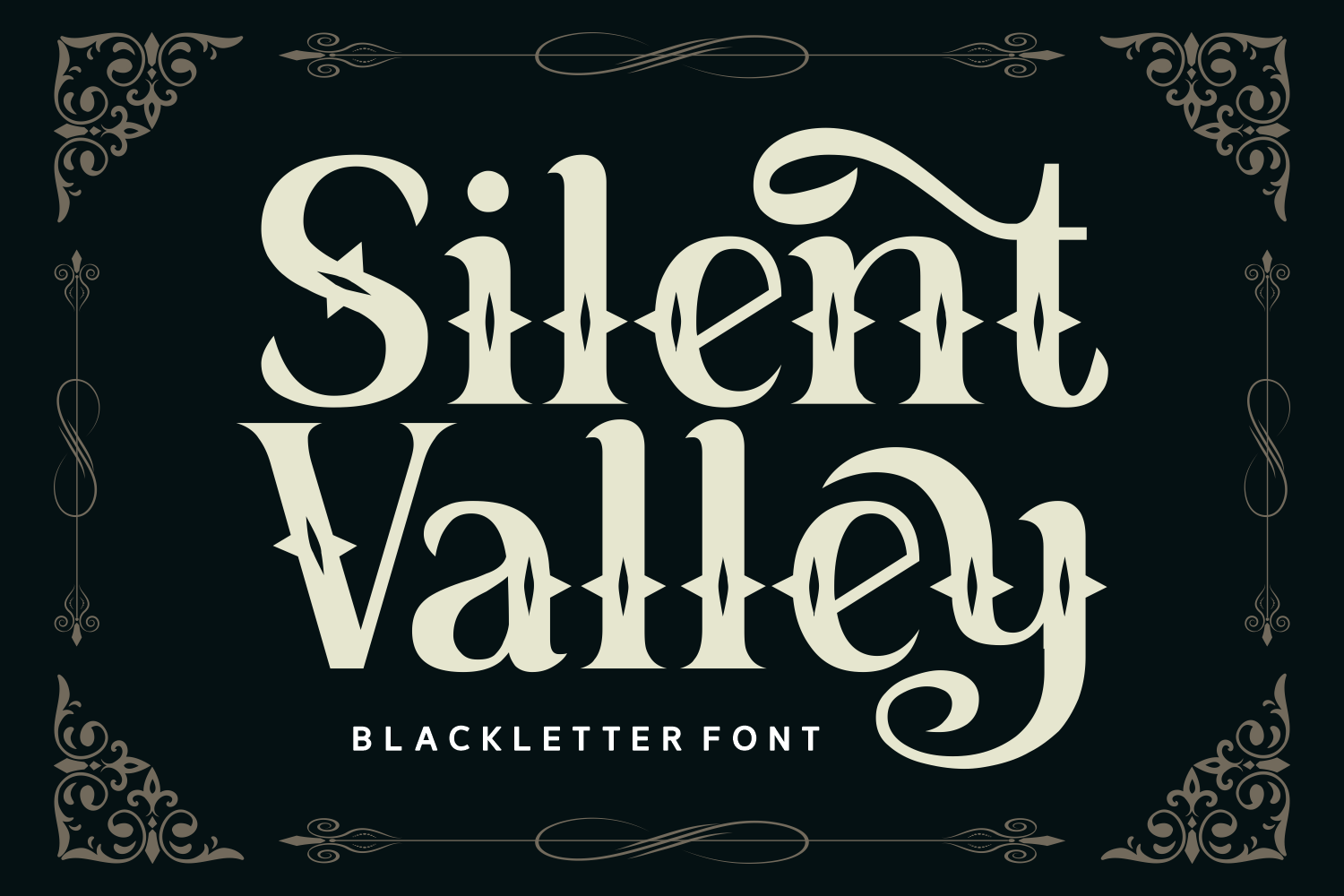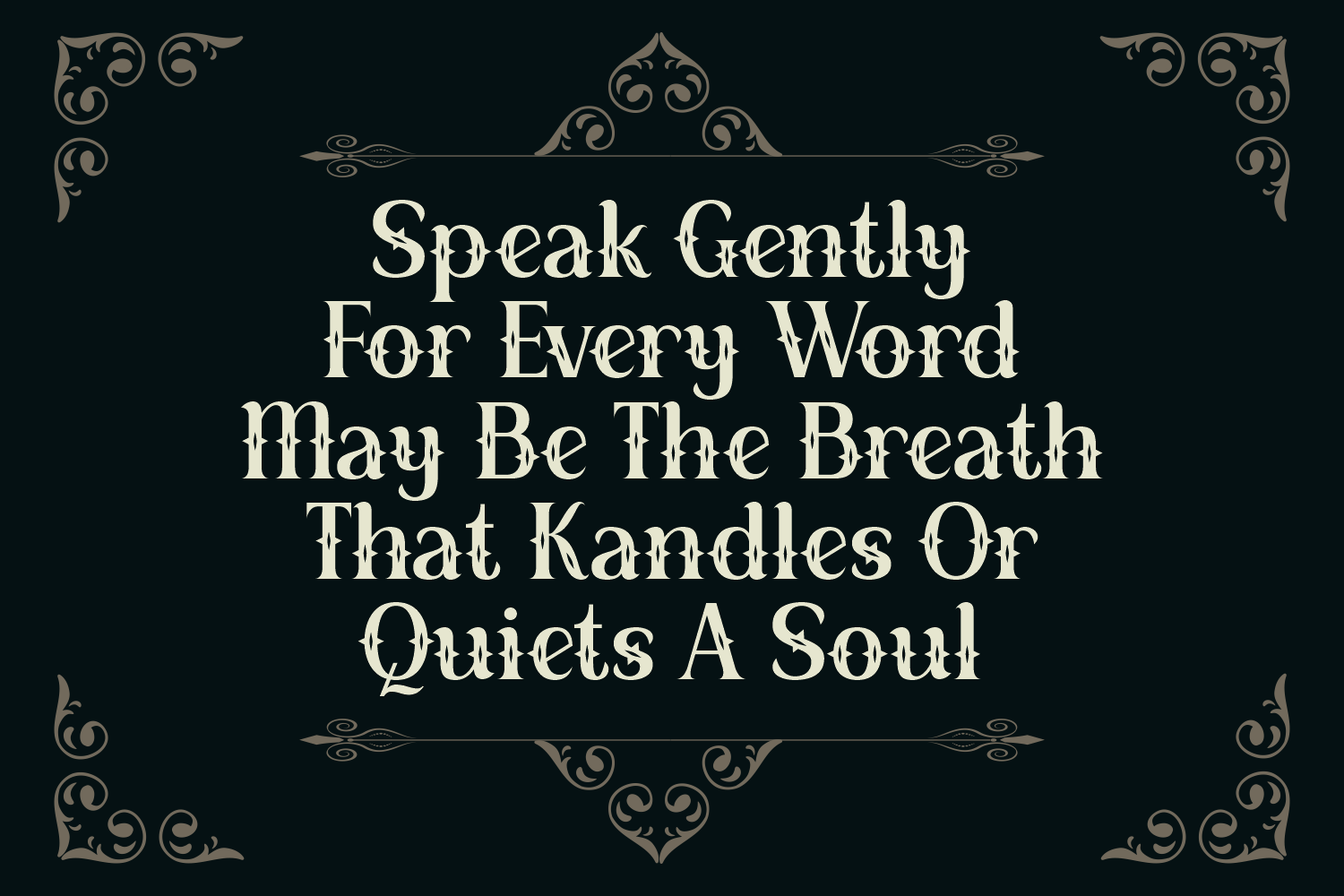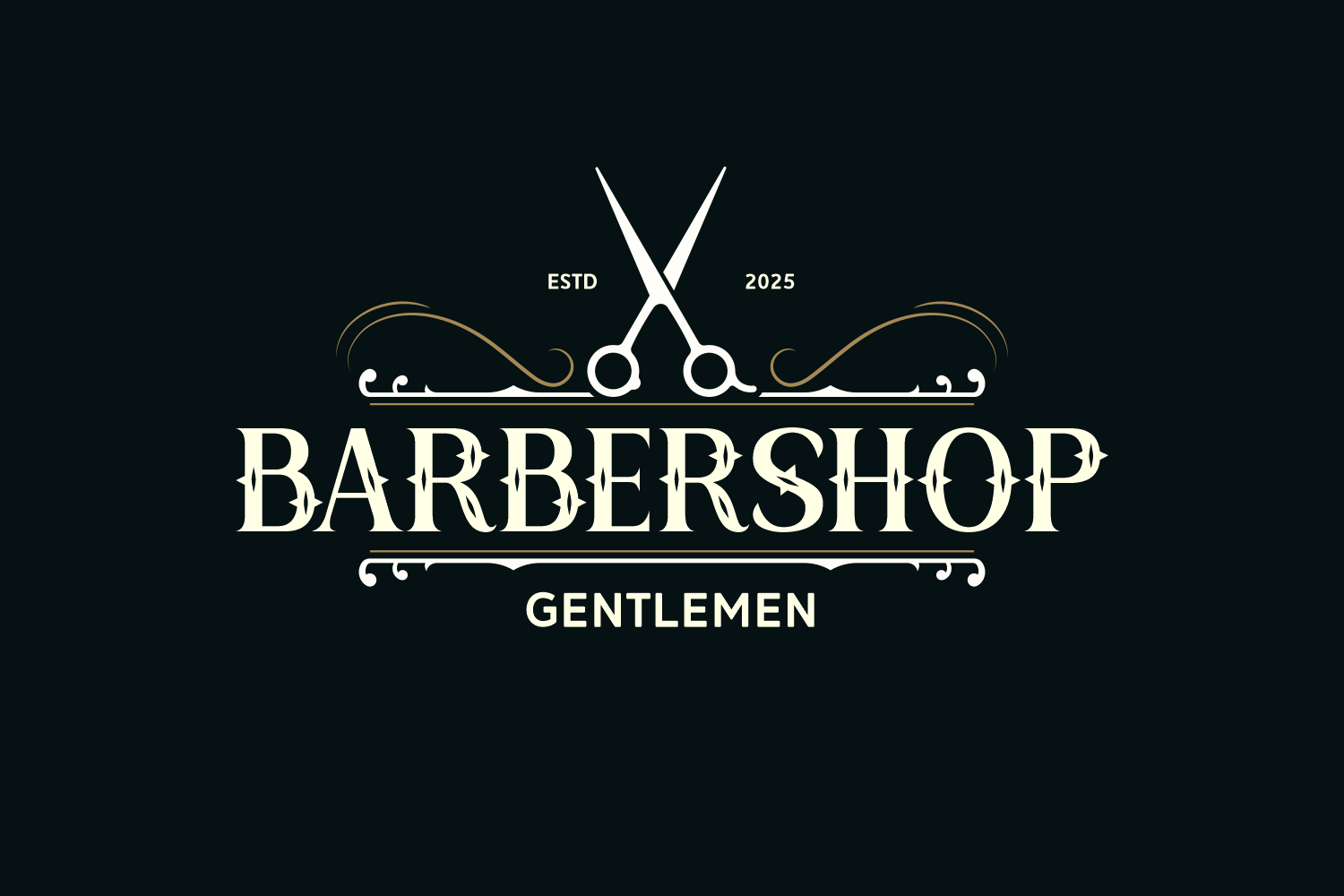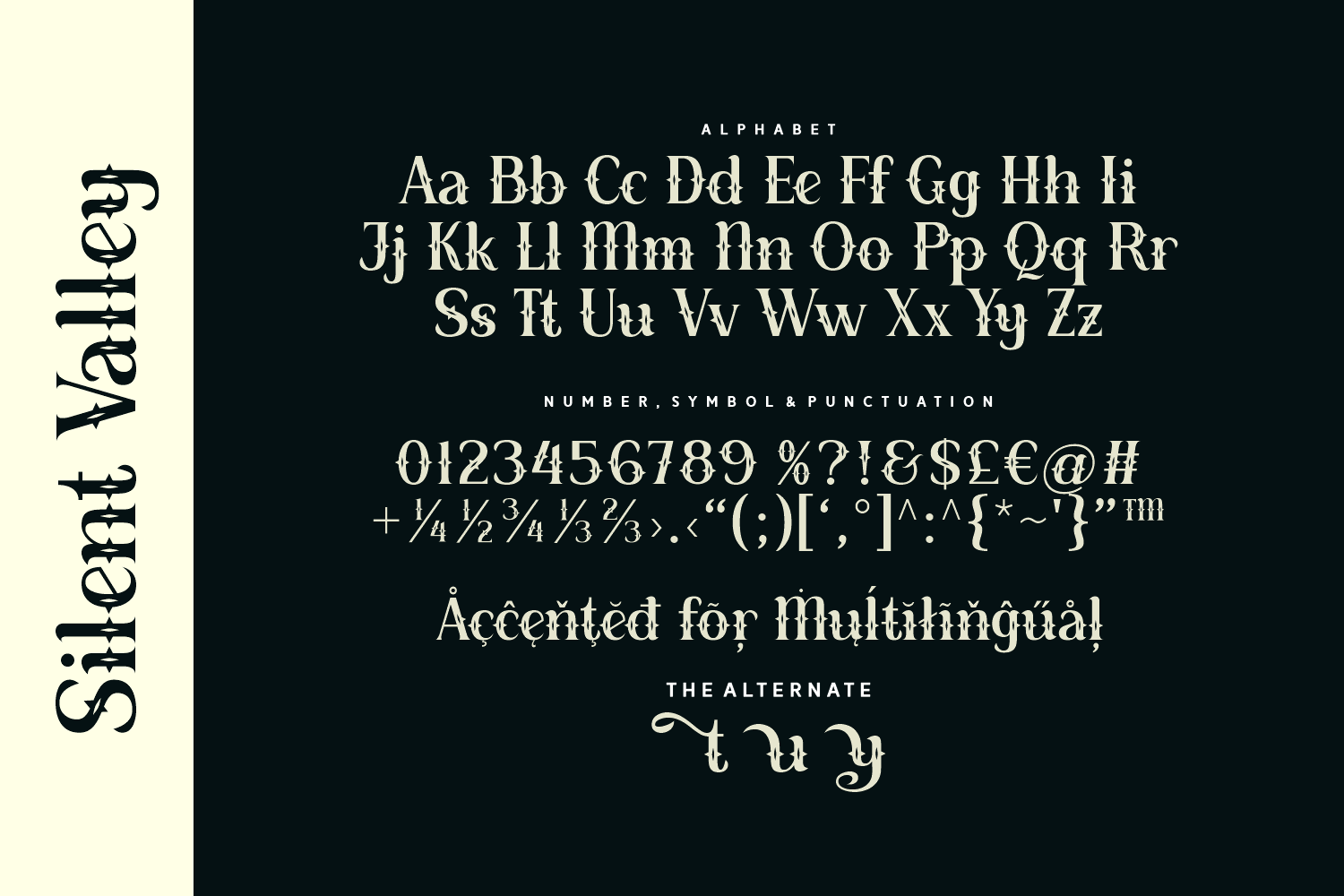
Silent Valley is a refined blackletter font that weaves elegance and mystery into every curve. With its gothic roots and decorative flair, it’s perfect for branding, book covers, and music artwork that seeks to evoke emotion and allure. T
he stylized letterforms carry a calm yet commanding tone, making your text feel timeless and expressive. Let your words echo with silence, grace, and power.